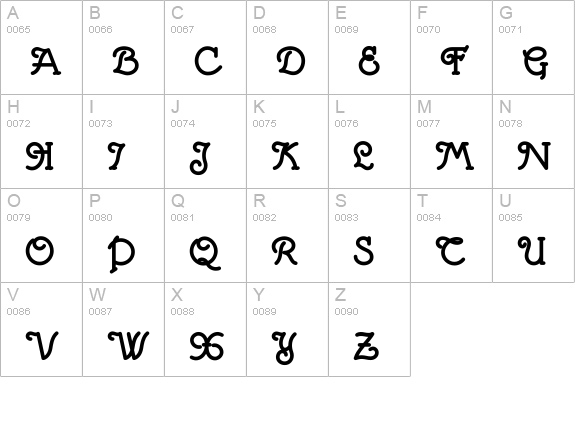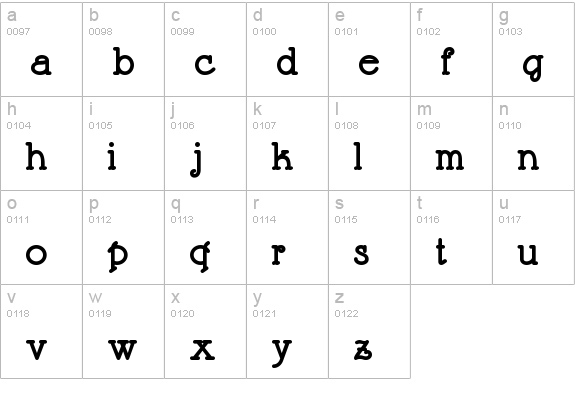
MargaritaVilleNF Bold Font Details
MargaritaVilleNF Bold is a strong, high-contrast variant in the MargaritaVilleNF typeface family \xE2\x80\x94 well suited to headlines, attention-grabbing titles, and strong calls-to-action.
Introducing MargaritaVilleNF Bold font, a bold and vibrant typeface that exudes a fun and energetic vibe. This font is perfect for making a statement, whether it's on a poster, a logo, or any other creative project that requires a touch of boldness. MargaritaVilleNF Bold font features a unique combination of playful curves and sharp edges, creating a captivating visual impact. Its thick and defined strokes ensure that your text stands out, commanding attention and leaving a lasting impression. One of the best features of MargaritaVilleNF Bold font is that it is freely available to download at FontsMarket.com. Yes, you heard it right, you can get this remarkable font without spending a dime. This means that you can unleash your creativity without any limitations, and bring your designs to life with this eye-catching typeface. Whether you're designing a party invitation, a menu for your favorite bar, or a tropical-themed project, MargaritaVilleNF Bold font is the perfect choice to add that extra touch of energy and excitement. Its versatility allows it to seamlessly blend into various design styles, making it a valuable asset for both professionals and enthusiasts. So, why wait? Don't miss out on this amazing opportunity to get your hands on MargaritaVilleNF Bold font for free! Head over to FontsMarket.com and download this bold and captivating typeface now. Let your creativity soar and create designs that will make a lasting impact.